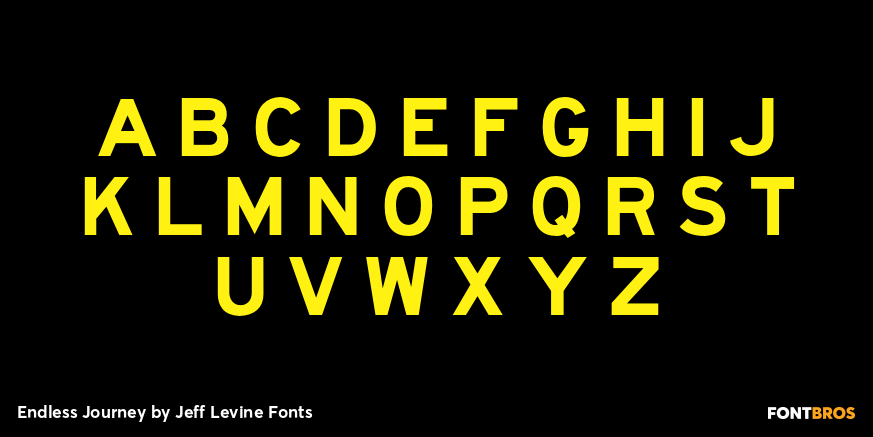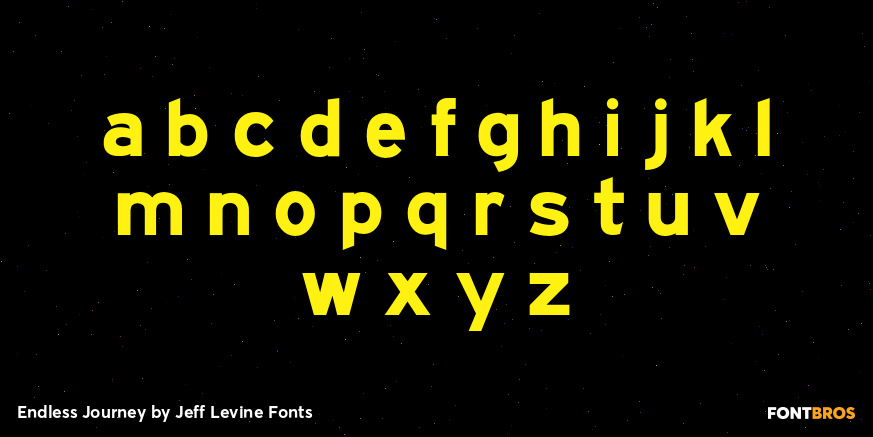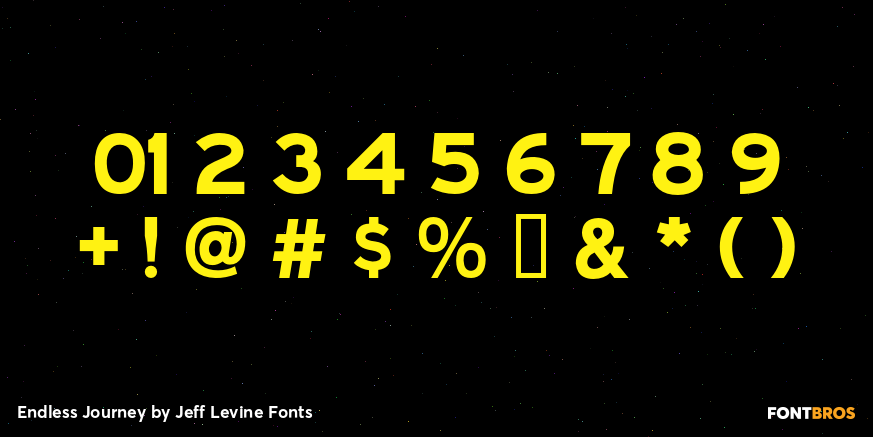
Endless Journey
Endless Journey JNL is Jeff's Levine's interpretation of the ever-popular lettering found on highway signage; giving it a slightly handmade look.
Endless Journey by Jeff Levine Fonts